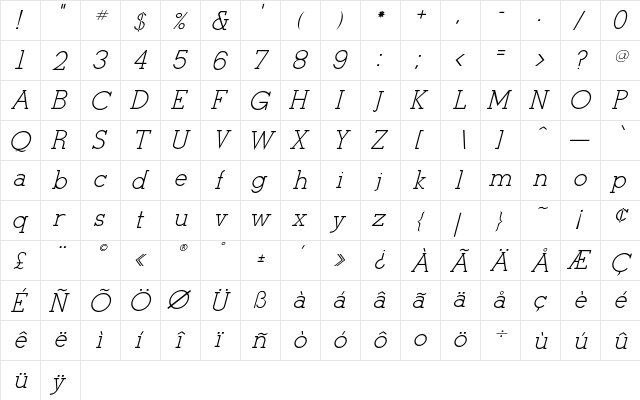
Tulane-Italic Regular
Design Context for Tulane-Italic Typeface
Tulane-Italic takes a measured approach to typography — its balanced proportions and neutral character make it a reliable workhorse for both digital and print work. The slanted form adds forward momentum and visual energy.